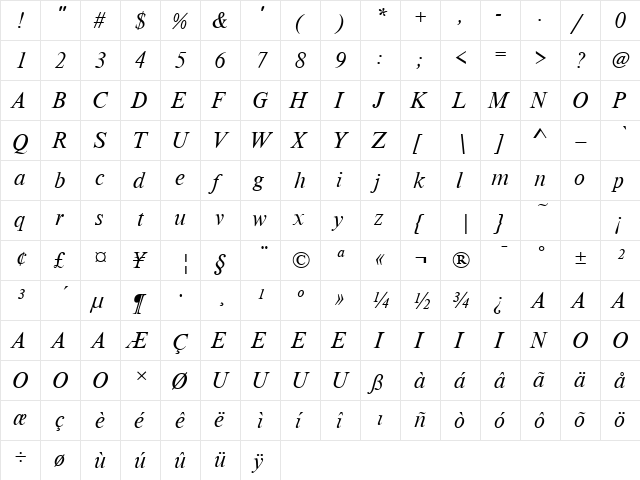
TurkishTimesSSK Italic
Design Context for TurkishTimesSSK Typeface
TurkishTimesSSK offers clean, dependable letterforms without strong stylistic allegiance, making it a practical choice for designers who need flexibility. The slanted form adds forward momentum and visual energy.
Pro Tip: Try TurkishTimesSSK for annotation and caption copy alongside an upright companion — the contrast in angle creates a dynamic but ordered typographic system.